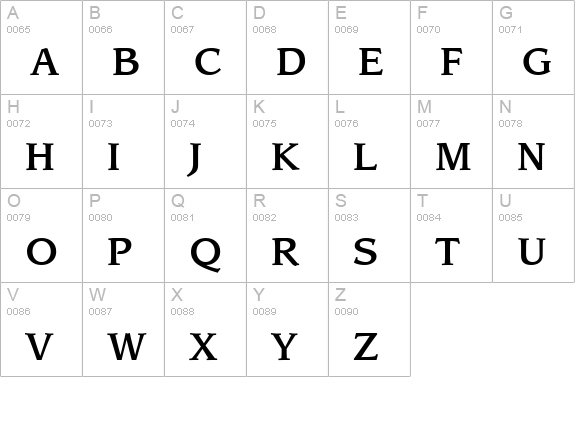
Introducing Sling font, a versatile typeface that effortlessly combines elegance with a touch of modernity. This stunning font is sure to capture attention and add a unique flair to any project it graces. Sling font boasts clean lines and sleek curves, making it perfect for a wide range of design purposes. With its wide range of weights and styles, Sling font offers endless possibilities for creative expression. Whether you're designing a logo, creating a striking headline, or crafting an eye-catching poster, this font has you covered. Its refined and sophisticated appearance lends itself well to both print and digital mediums, ensuring that your message will be delivered with utmost clarity and style. One of the best features of Sling font is that it is completely free. That's right, you can download this remarkable typeface without spending a dime. Simply visit FontsMarket.com and discover the wonders of Sling font for yourself. Embrace the freedom of creativity and elevate your designs with this incredible font. Sling font is not only aesthetically pleasing but also incredibly easy to work with. Its well-designed characters and smooth letterforms make it a joy to use, whether you're an experienced designer or just starting out. You'll appreciate how effortlessly this font enhances your designs, elevating them to a whole new level of professionalism and sophistication. Don't miss out on the opportunity to enhance your design arsenal with Sling font. Download it for free at FontsMarket.com and unlock a world of creative possibilities. Whether you're a graphic designer, a typographer, or simply someone who appreciates beautiful typography, Sling font is a must-have addition to your collection. Embrace the freedom to create stunning visuals and let Sling font be your trusted companion on your creative journey.